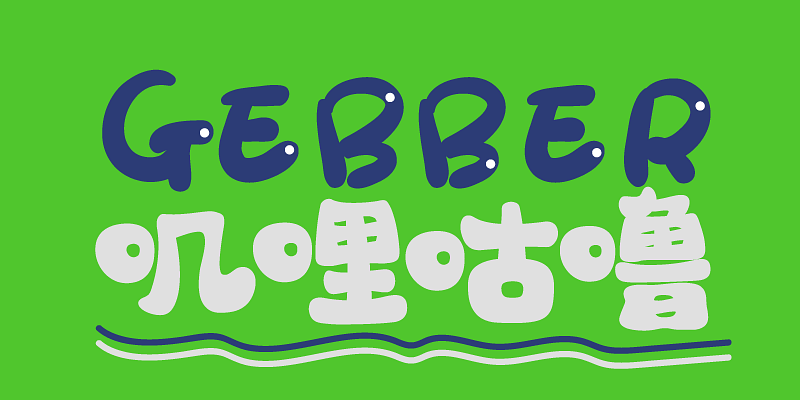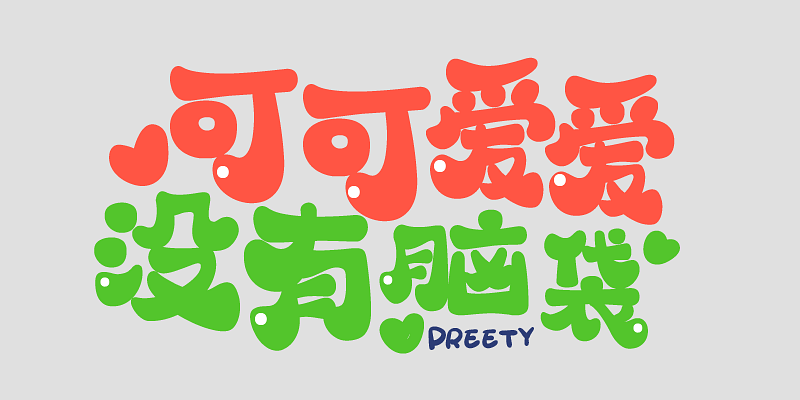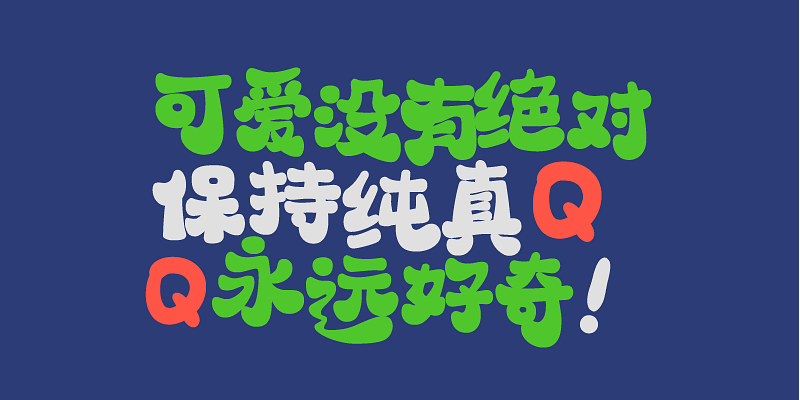
Typeface of HelloFont ID QQSugar is neat and and varied. It is occasionally heavy and occasionally light, soft and glutinous, simple and unadorned, casual and witty. Designer skillfully uses the round features of the soft brush to make the strokes contrasting. Also this makes font more approachable with the help of smart strokes and gives people warm and amiable feeling.